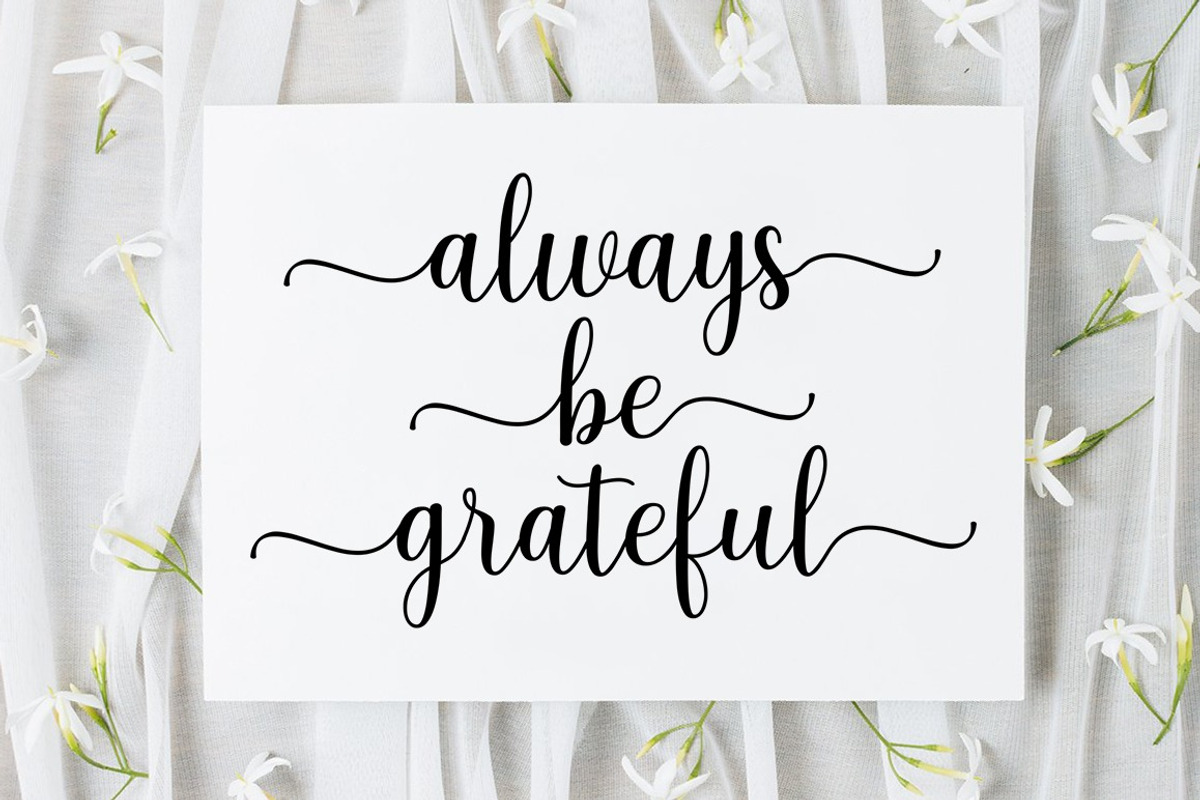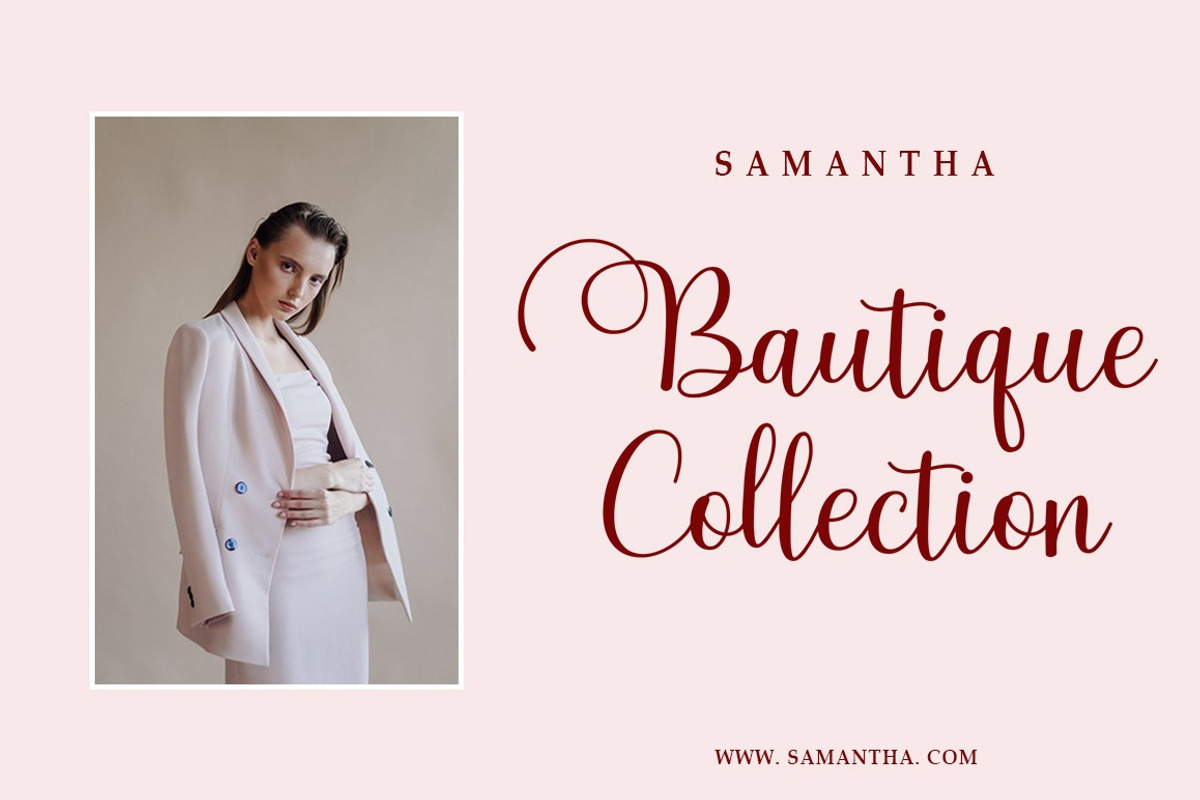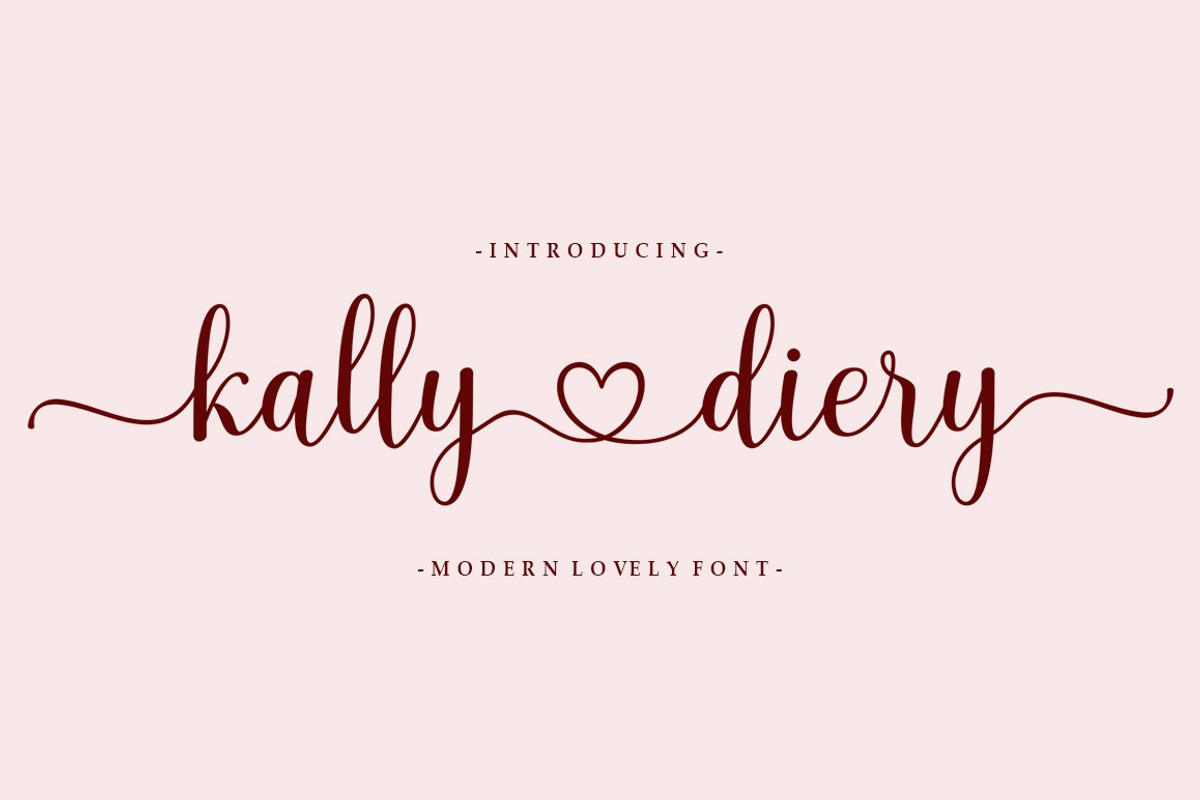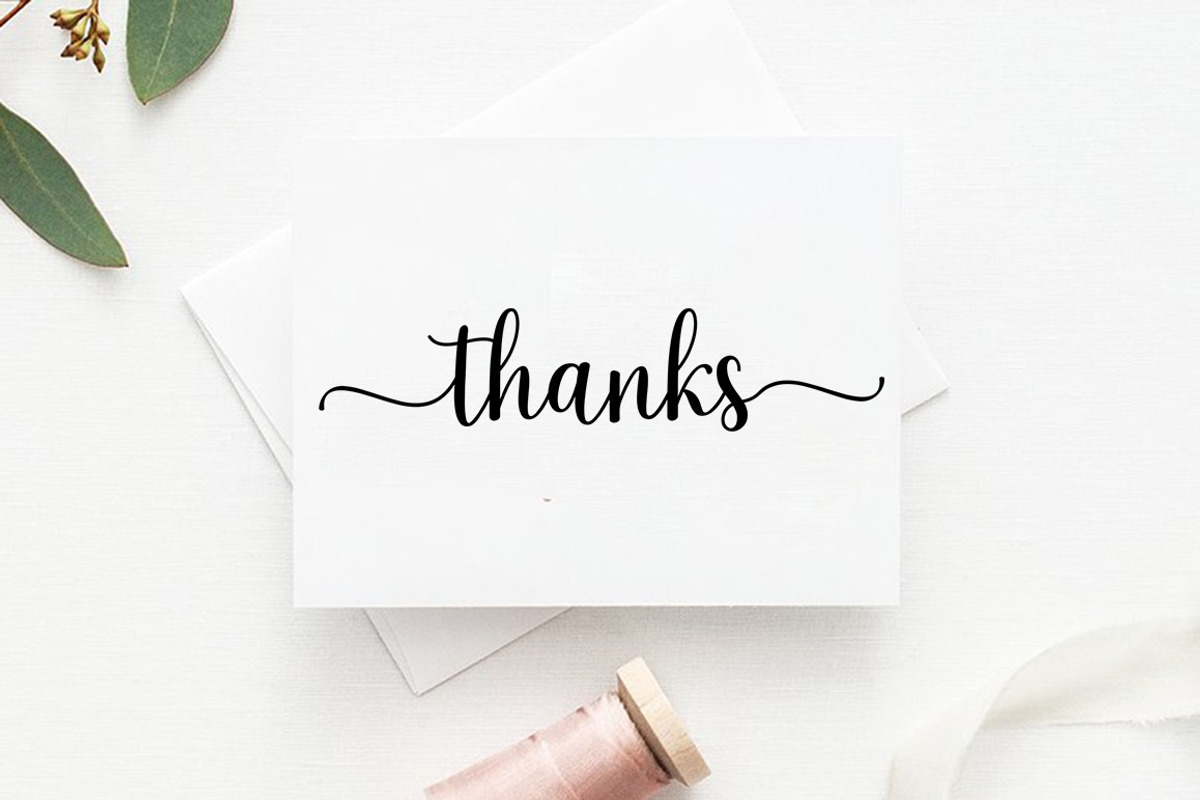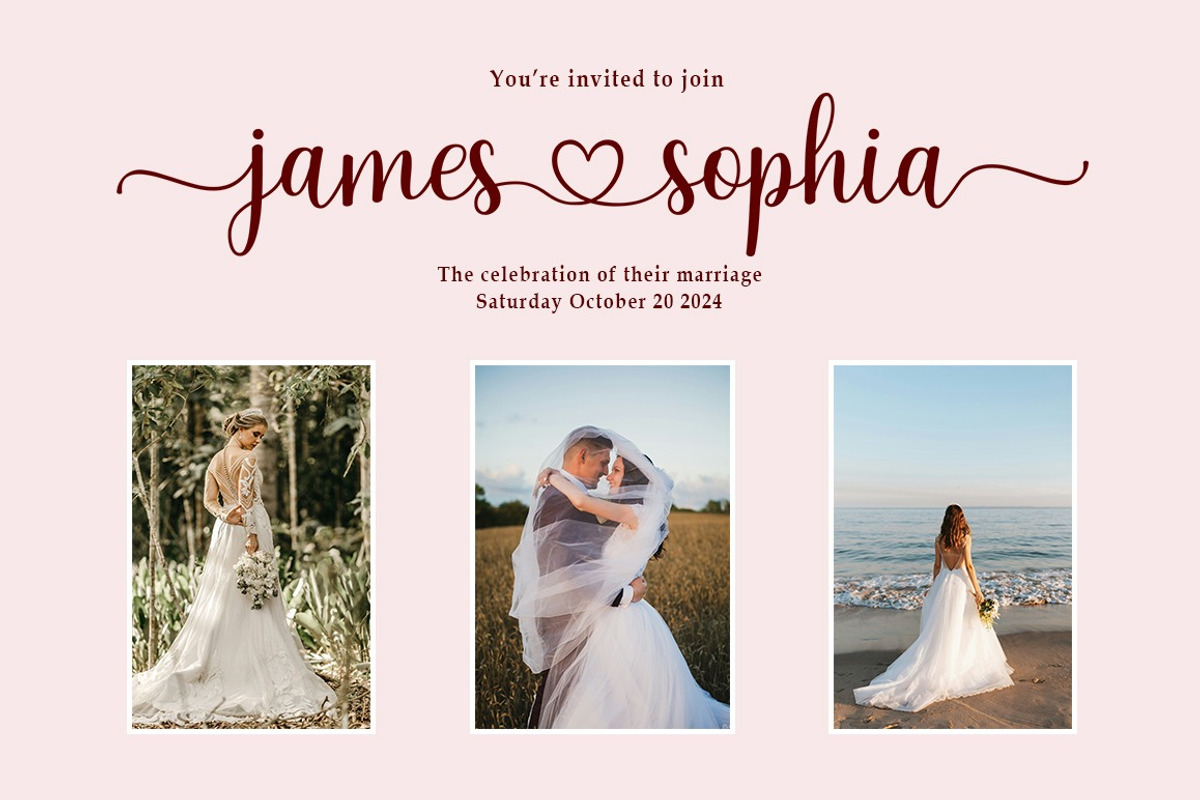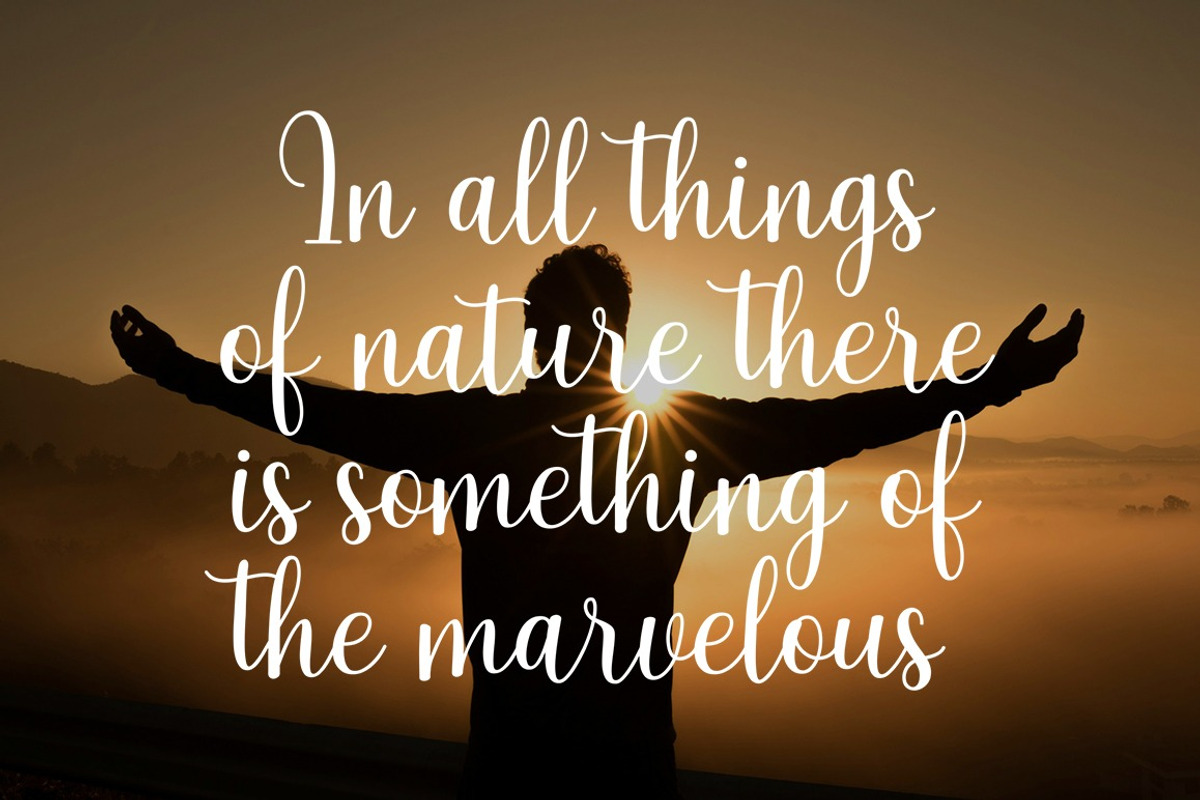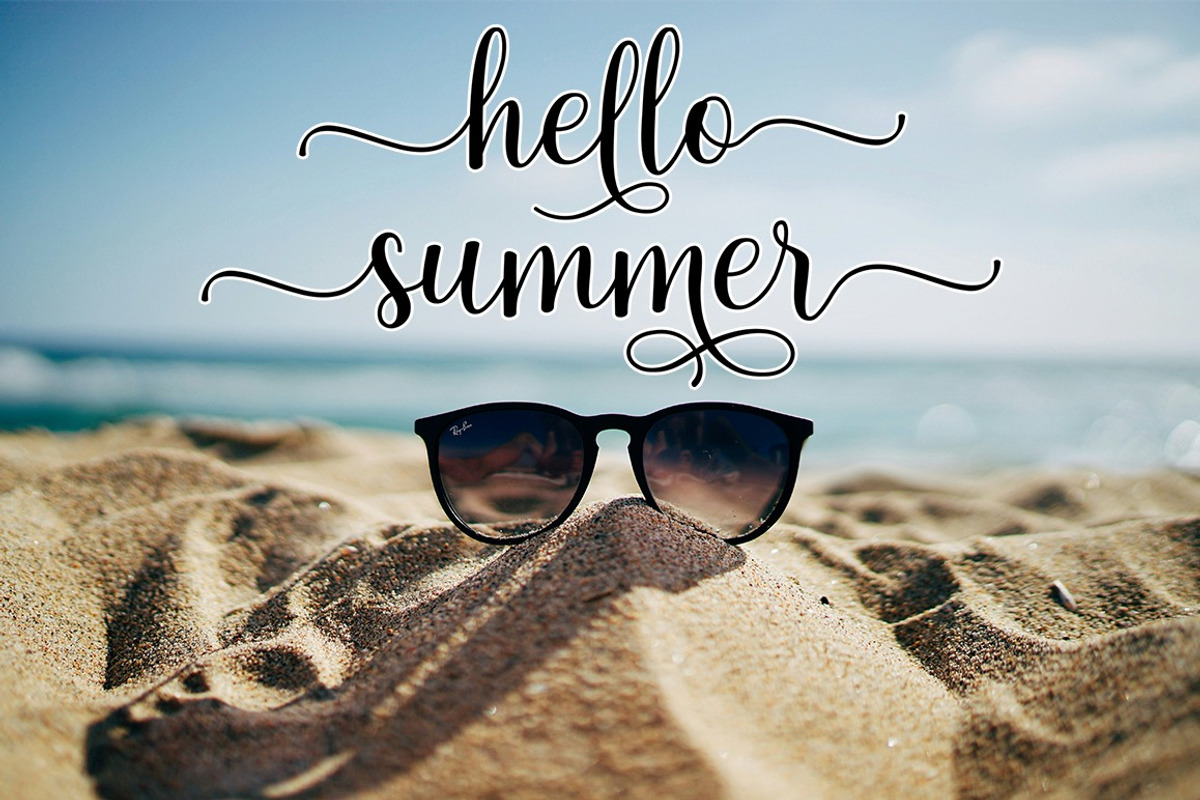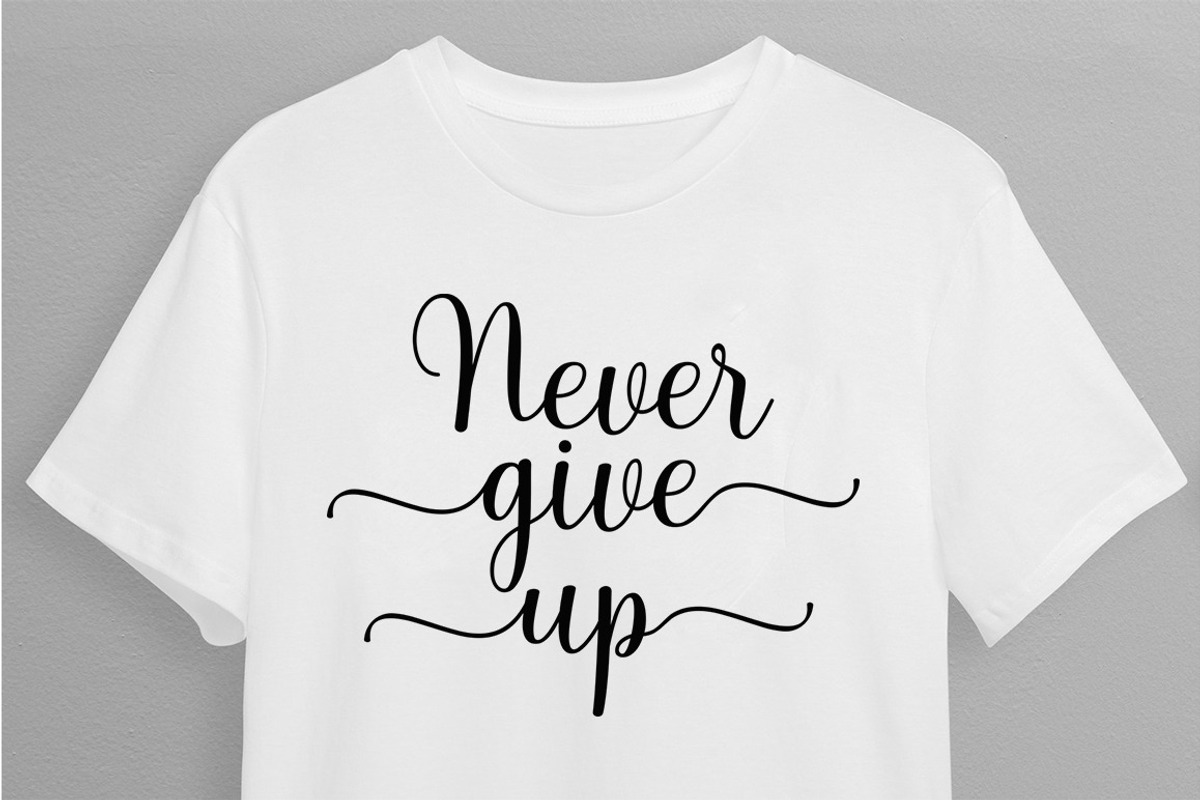
Kally Diery – Lovely Script
Kally Diary – Lovely Script Font is a romantic and elegant handwritten typeface designed to capture the feeling of love, sweetness, and personal expression. Featuring smooth flowing strokes, soft curves, and a charming heart-style connection, this font brings a warm and emotional touch to your designs.
Perfect for wedding invitations, love quotes, branding, social media content, packaging, and feminine design projects. Its natural handwritten style makes every word feel personal, stylish, and full of character.
Whether you're creating something romantic or simply want a soft aesthetic look, Kally Diary adds a beautiful handwritten charm to your work.
Smooth and flowing handwritten style Romantic and feminine look Unique heart connection detail Perfect for branding, wedding, and social media Easy to use and highly versatile